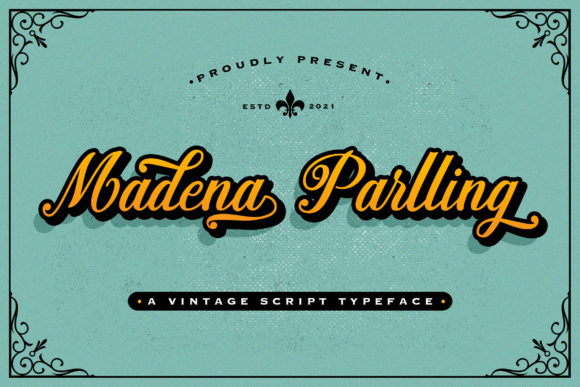
In a world where creativity reigns supreme, we unveil Madena Parlling, a font that dances on the lines of elegance and distinction. Experience the symphony of curves and the melody of rounded edges, a testament to the artistry of StringLabs. Crafted with precision, Madena Parlling exudes an aura of vintage charm, a nostalgic embrace that whispers of timeless beauty.
Immerse yourself in the magnetism of Madena Parlling, a script font that exudes strength and boldness. Its presence commands attention, its lines flowing with the grace of a ballerina. Let your imagination soar as you witness the transformation of your creative visions into tangible masterpieces. Madena Parlling is the brushstroke that breathes life into your words, the chisel that sculpts your thoughts into enduring works of art.
Madena Parlling is not just a font; it's an invitation to embark on a creative odyssey. Its unique vintage style beckons you to explore uncharted territories, to push the boundaries of your imagination. With Madena Parlling as your creative companion, you'll discover hidden depths of expression, unlocking a treasure trove of artistic possibilities.
Branding takes center stage with Madena Parlling. Its distinct character lends an air of sophistication and allure, making it the perfect choice for businesses seeking to leave a lasting impression. From logos that radiate authority to product labels that exude elegance, Madena Parlling elevates your brand identity to new heights, transforming it into a symbol of excellence and distinction.
Dare to be different, dare to stand out. Madena Parlling is more than just a font; it's a gateway to a world of creative fulfillment. Embrace its captivating allure and watch as your ideas flourish, your designs captivate, and your brand shines brighter than ever before.